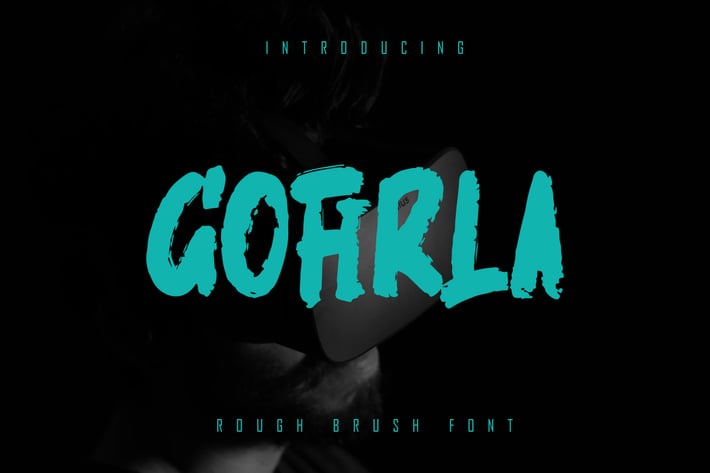
GOFIRLA - Rough Brush Font
GOFIRLA is a type of textured brush or paint scratches or original brush, there are textures like the original stroke of this font suitable for other film or commercial needs that can support your business or company. thank you
+ Ligature
+ Basic Latin Language Support (AÀÁÂÃÄÅCÇDÐEÈÉÊËIÌÍÎÏÑOØÒÓÔÕÖUÙÜÚÛWYÝŸÆß